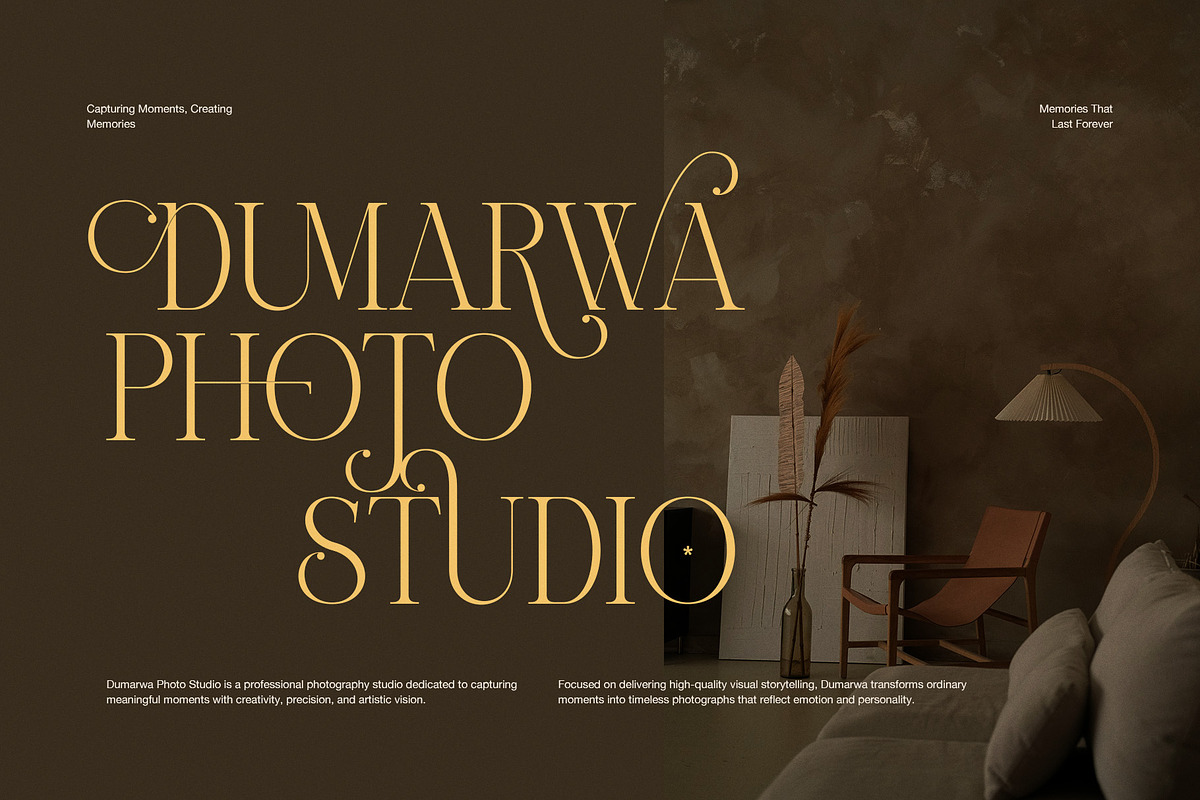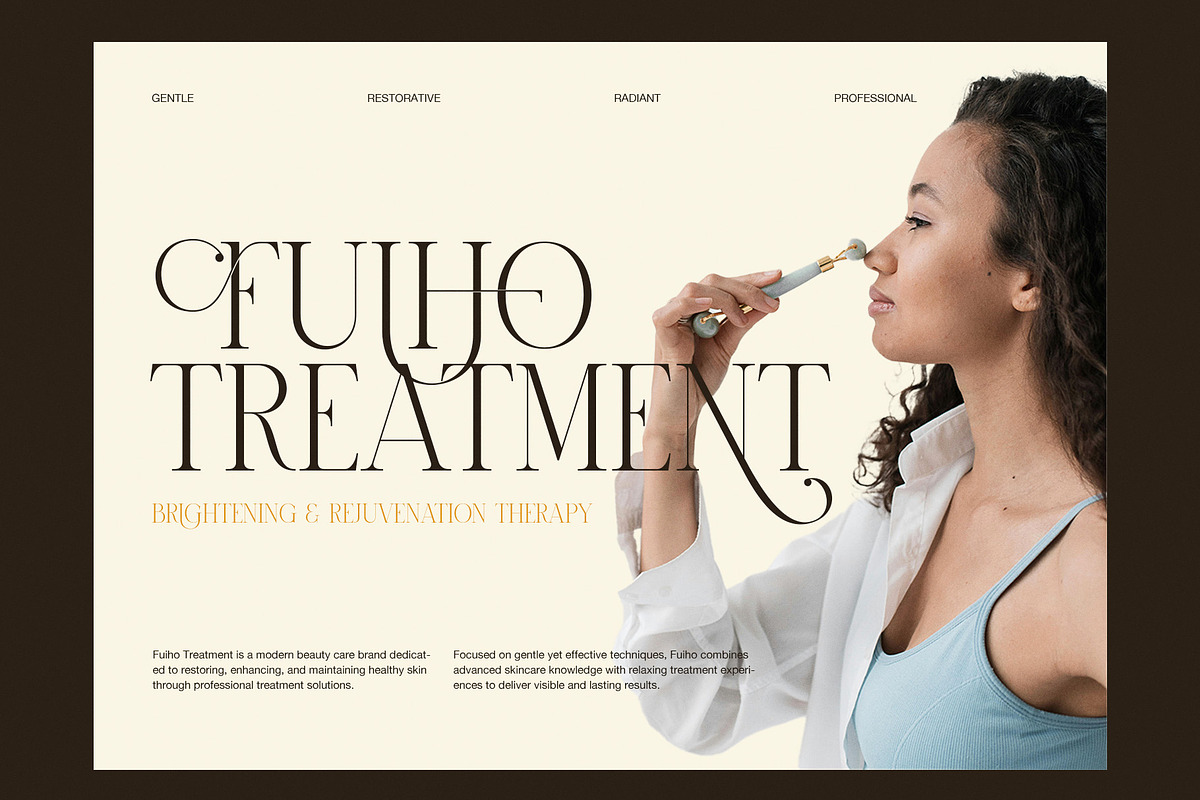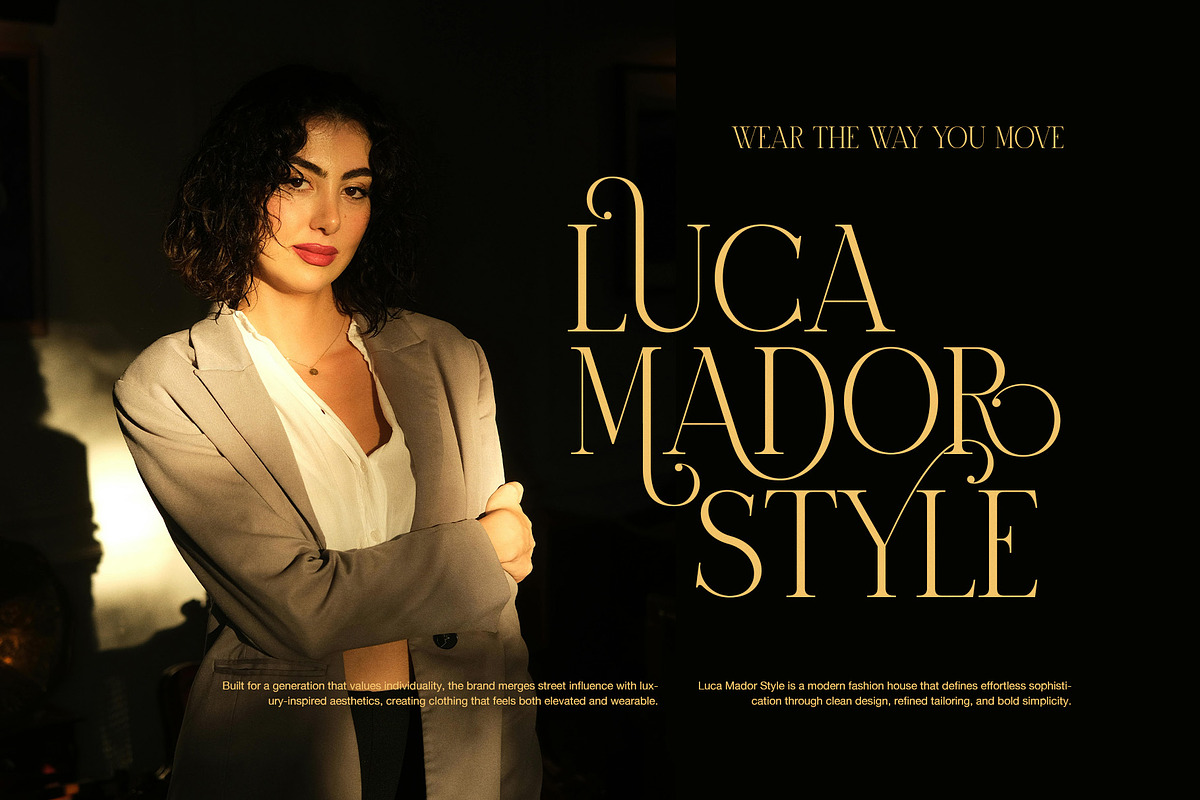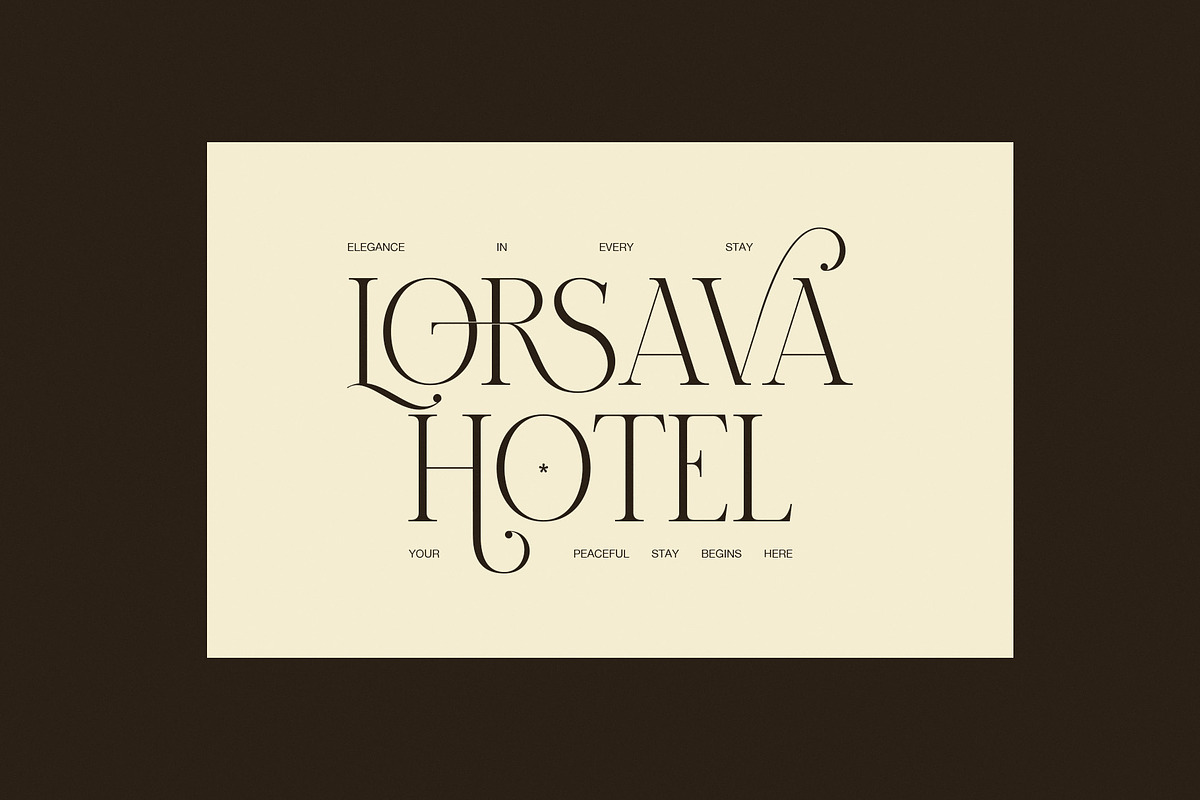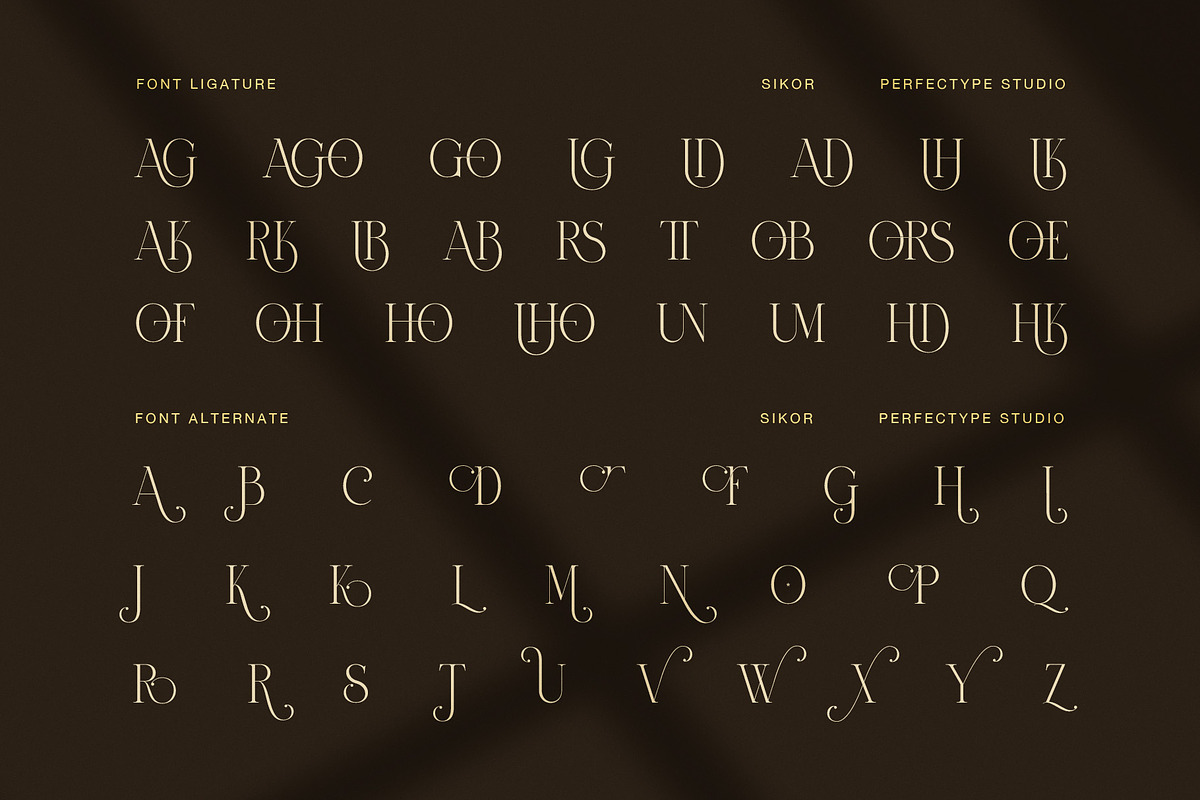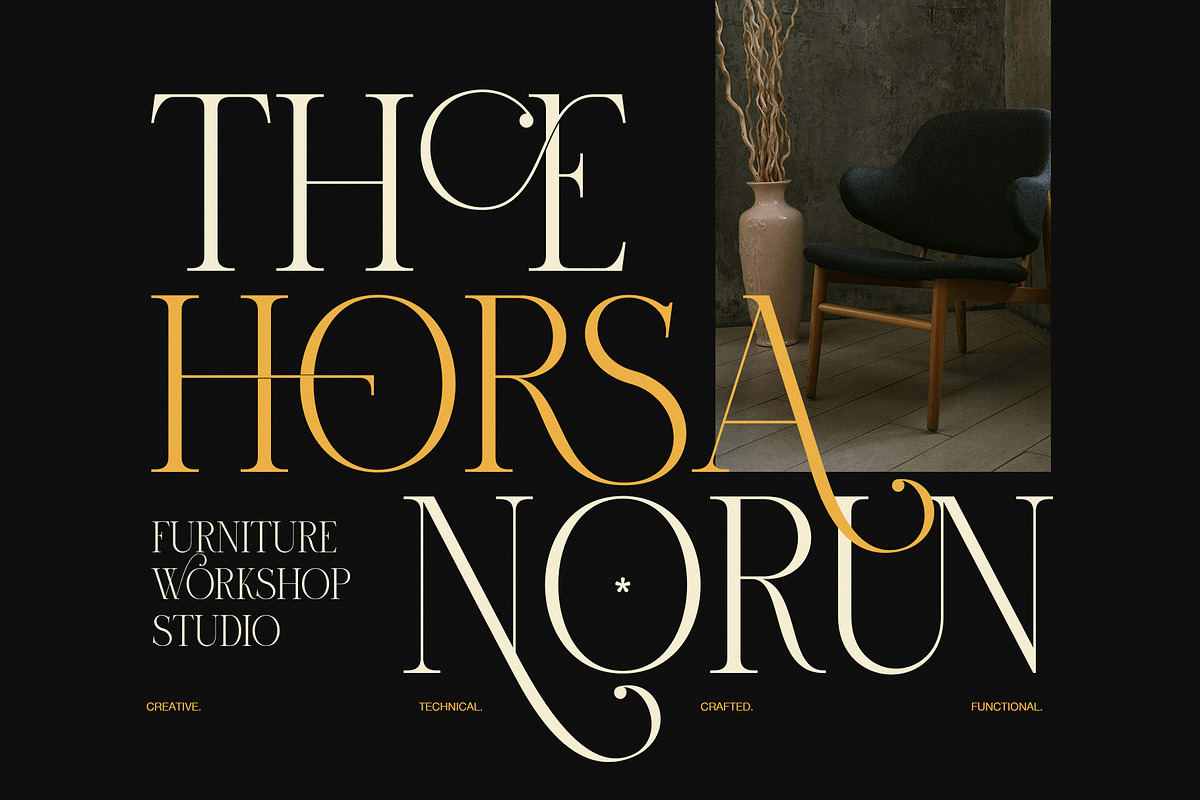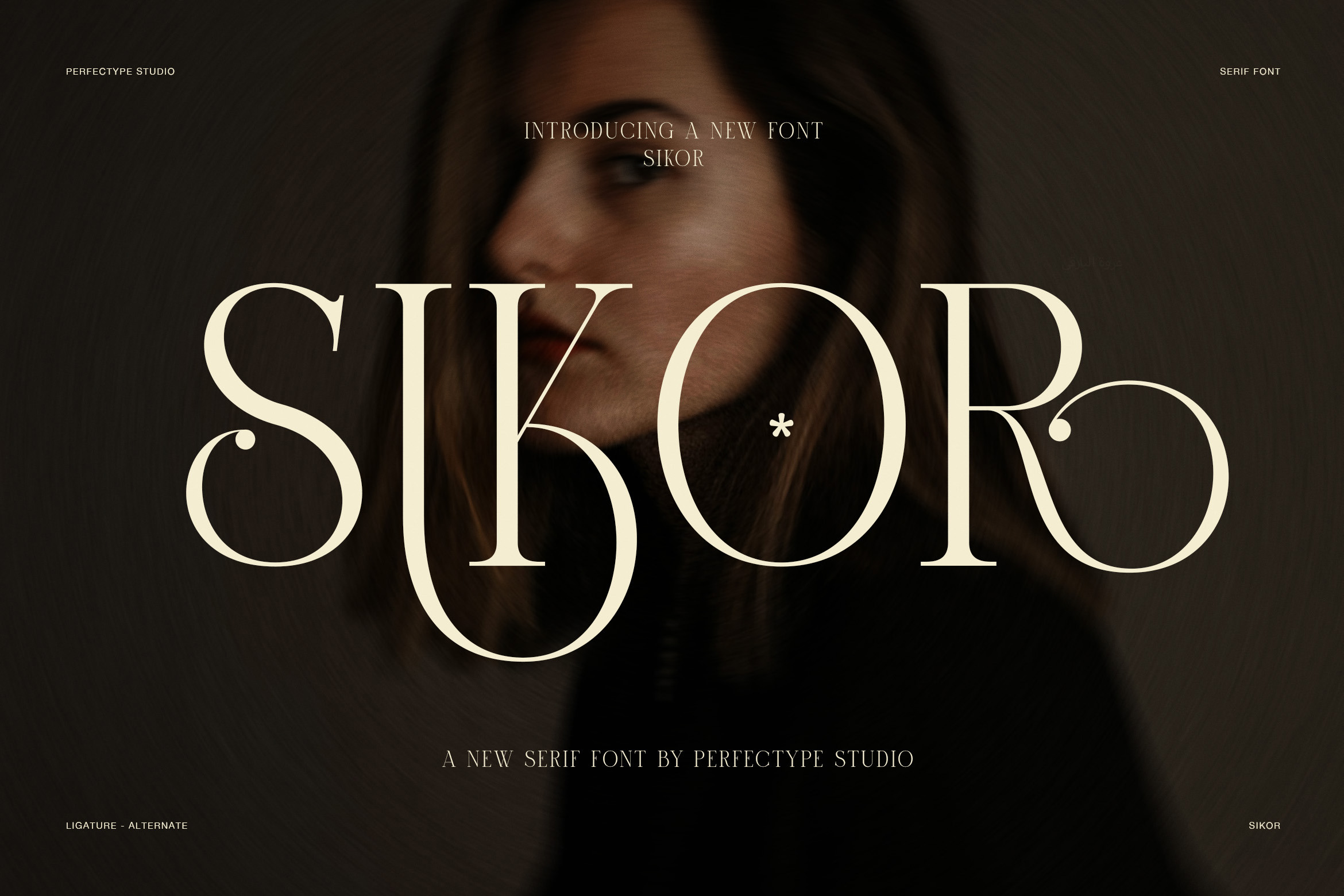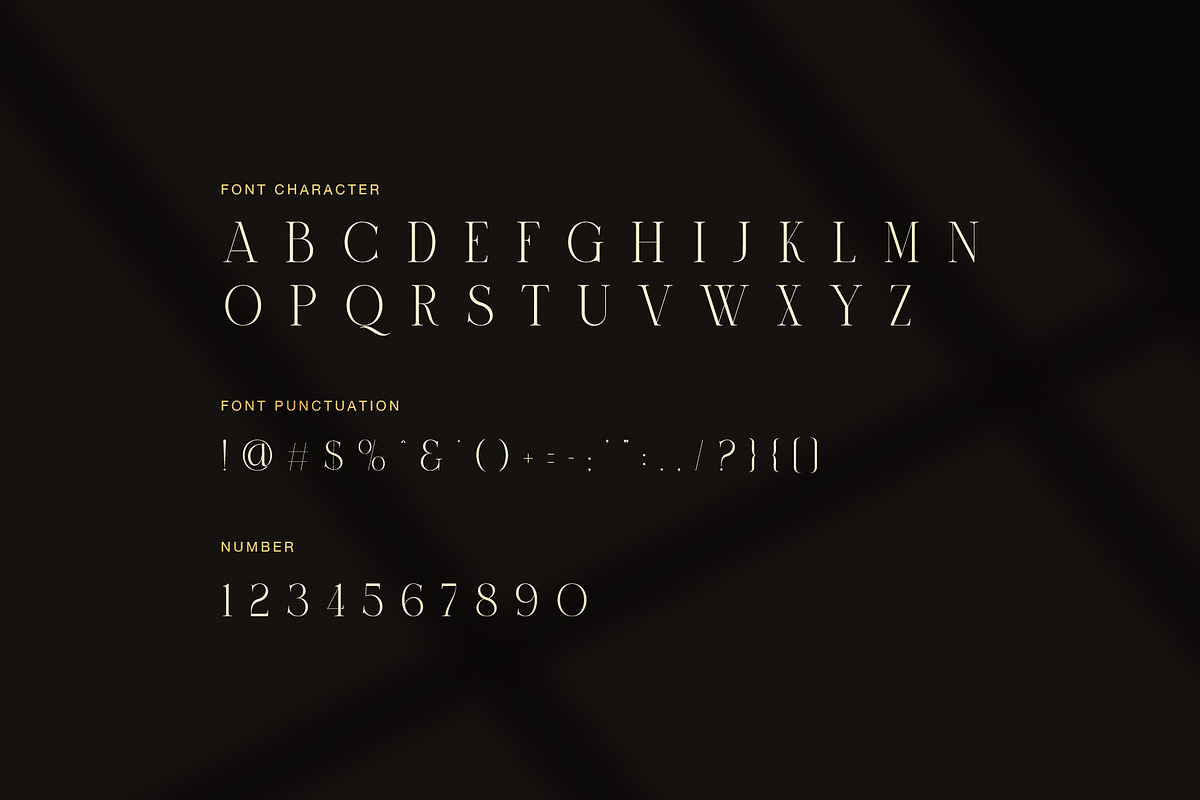
Sikor Luxury Swash Serif Font
Sikor is a modern luxury serif font made for elegant branding, fashion layouts, and stylish display typography. It combines high contrast strokes, fine hairlines, classic serif details, and graceful swashes to create a refined look. As a result, each headline feels polished, expressive, and full of character.
The tall uppercase letters give Sikor a strong editorial presence. Meanwhile, its thin and thick stroke contrast adds a graceful rhythm that works especially well at large sizes. The letter shapes remain clean, so the font can bring a premium feel without looking too heavy. Therefore, Sikor is a natural choice for projects that need beauty, style, and a clear visual voice.
One of its most useful features is the set of decorative alternate characters. Several letters include flowing terminals, curls, and extended strokes that can turn a simple word into a custom-looking headline. In addition, the font includes a collection of ligatures designed to create smooth connections between selected letter pairs. These details make Sikor more flexible for logos, names, titles, and short statements.
Sikor Font Features
Luxury high-contrast serif style
Elegant uppercase letterforms
Decorative swash alternates
Stylish ligatures for selected letter pairs
Fine hairlines and bold vertical strokes
Graceful curves and extended terminals
Numbers and useful punctuation
Strong editorial character
Refined display typography
Suitable for print and digital design
Best Uses
Sikor is well suited to:
Luxury fashion branding and campaigns
Beauty and skincare identities
Hotel and hospitality branding
Photography studios and portfolios
Interior design presentations
Jewelry and premium product packaging
Editorial magazines and posters
Wedding stationery and invitations
Elegant logo design
Social media and advertising graphics
Because of its decorative style, Sikor works best when the typography has room to breathe. Large headlines, short brand names, and carefully spaced titles can show its fine details clearly. However, the cleaner standard characters can also support smaller supporting text when used with care.
The overall style is sophisticated, feminine, artistic, and contemporary. At the same time, its classic serif structure keeps the design grounded and timeless. The swash alternates add a touch of romance, while the strong capitals bring confidence and presence.
Whether you are creating a fashion logo, luxury brand identity, beauty campaign, hotel concept, or editorial cover, Sikor gives your design an elevated finish. It is a versatile display typeface for designers who want elegant serif forms with expressive alternates and refined ligatures.